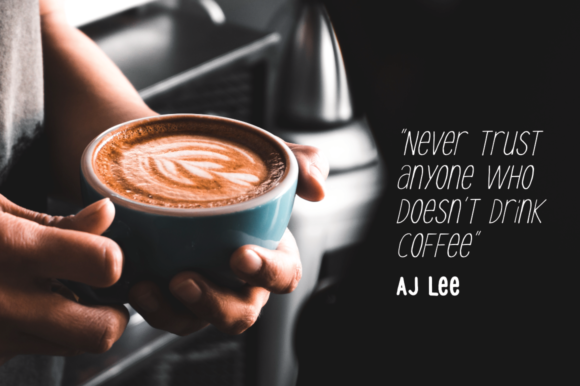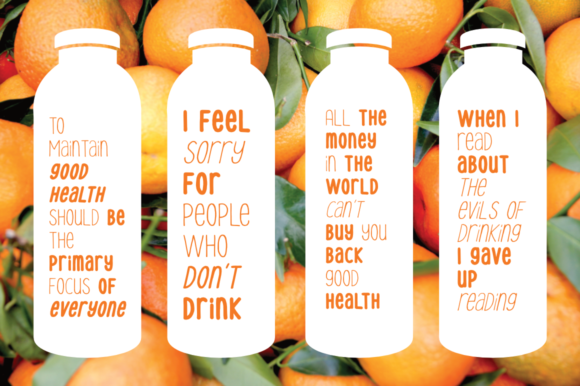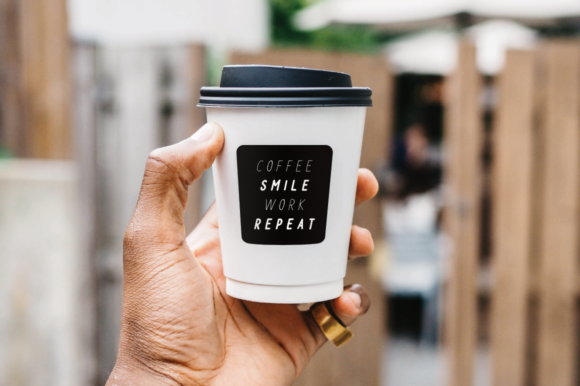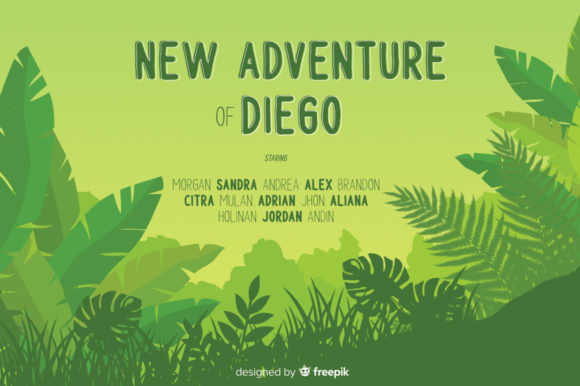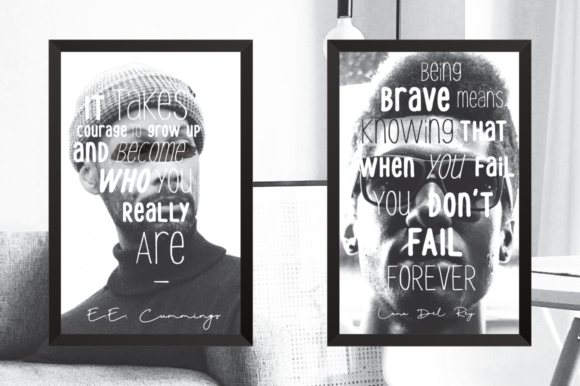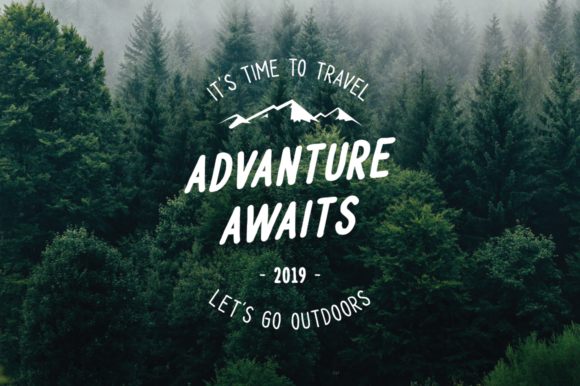
Introduction to Le Havre City Font
Le Havre City is an unique display font family inspired by the handwriting of children.
Fall in love with its playful nature .
Key Features of Le Havre City Font
Why Choose Le Havre City Font?